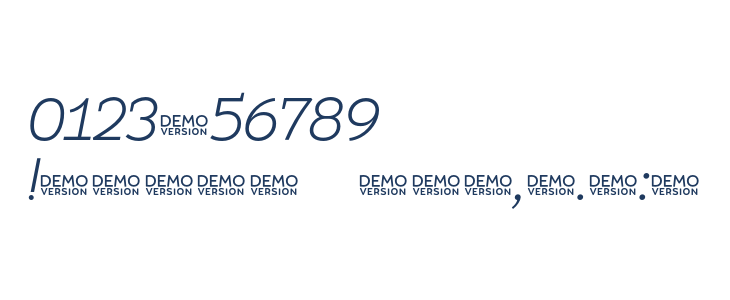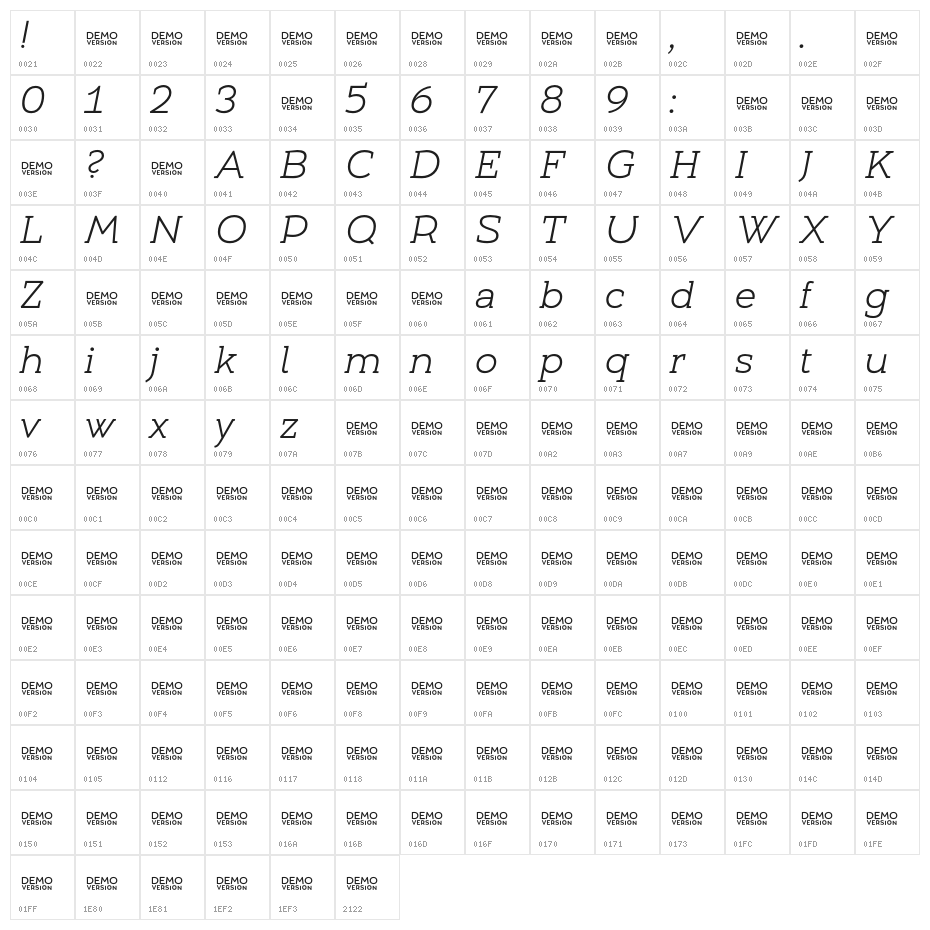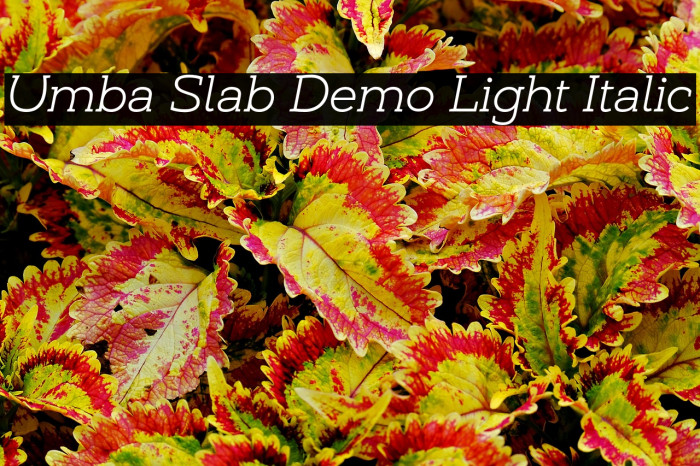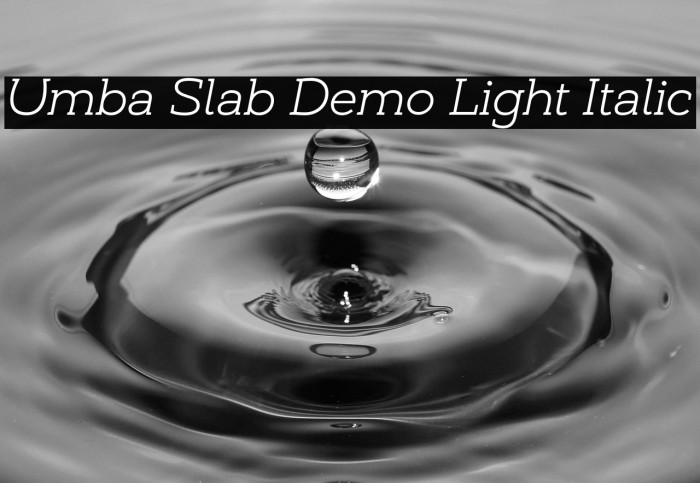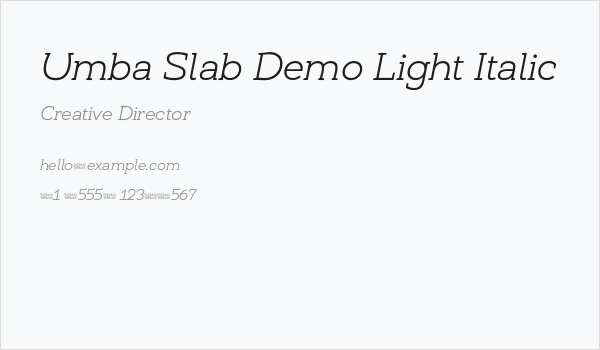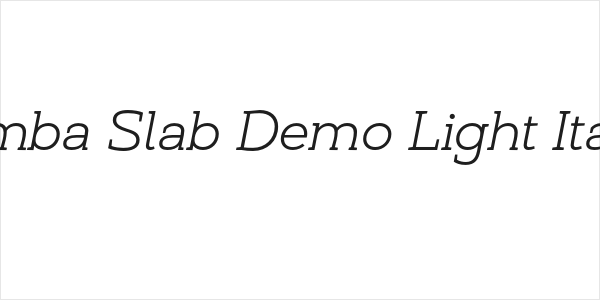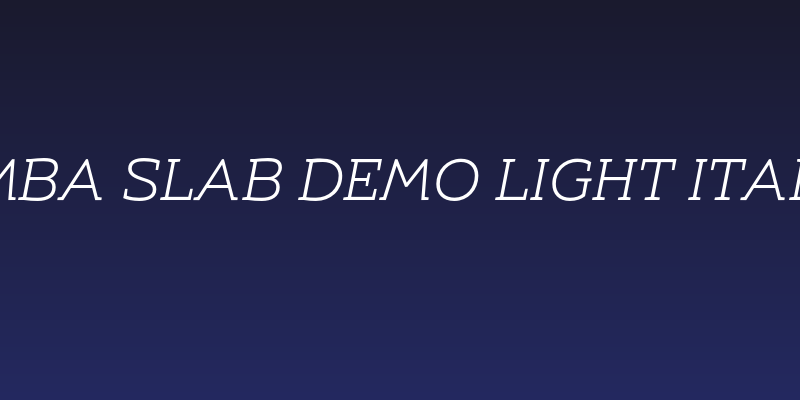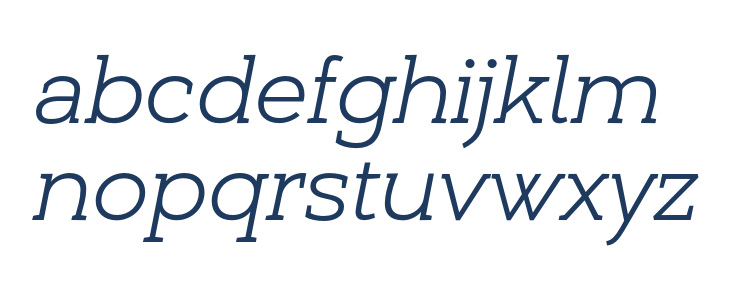
Umba Slab Demo Light Italic Font
Umba Slab Demo Light Italic Description
This font exhibits a refined and elegant style with a light weight and italicized form. The characters are sleek and elongated, providing a sophisticated appearance. The serifs are subtle, adding a touch of classic elegance without overpowering the overall modern aesthetic. The font maintains a consistent stroke width, contributing to a clean and polished look. Its italic nature gives it a dynamic and fluid feel, making it suitable for creative and expressive applications. The spacing between characters is balanced, ensuring readability while maintaining an airy and open feel. This font is versatile, lending itself well to both digital and print media.